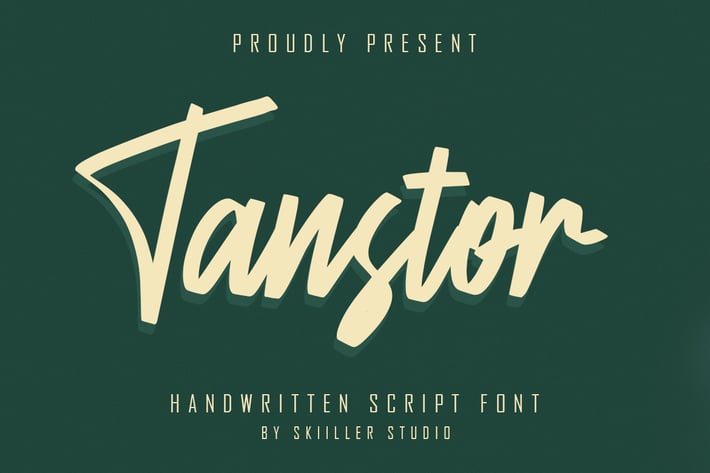
Tanstor - Handwritten Script Font
Tanstor Beauty Script Equipped with uppercase, lowercase letters, numbers, punctuation, and so many variations on each character such as Standard Ligature. Perfect for use for Logotype, Letterhead, Posters, Clothing Designs, Labels, quotes and more